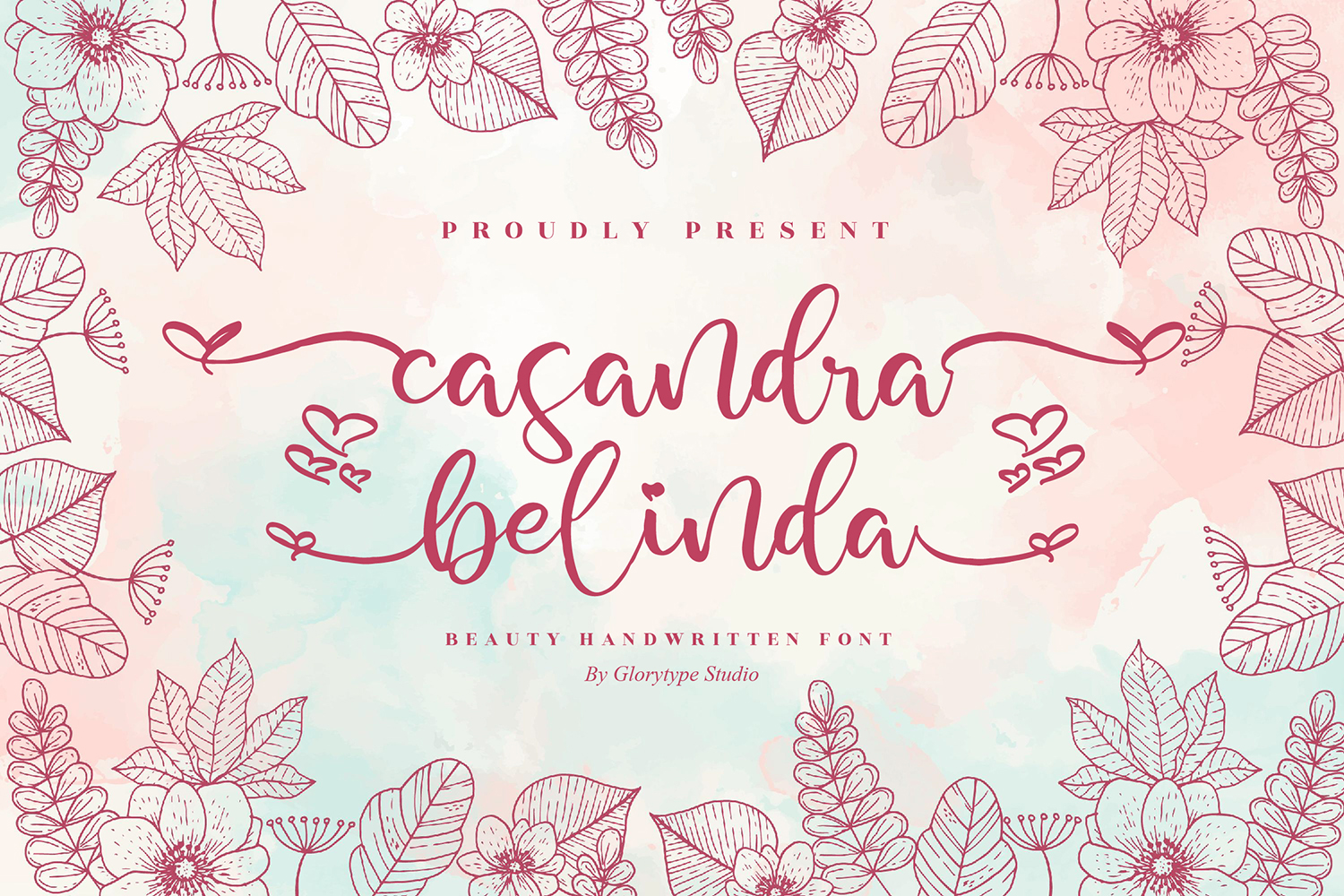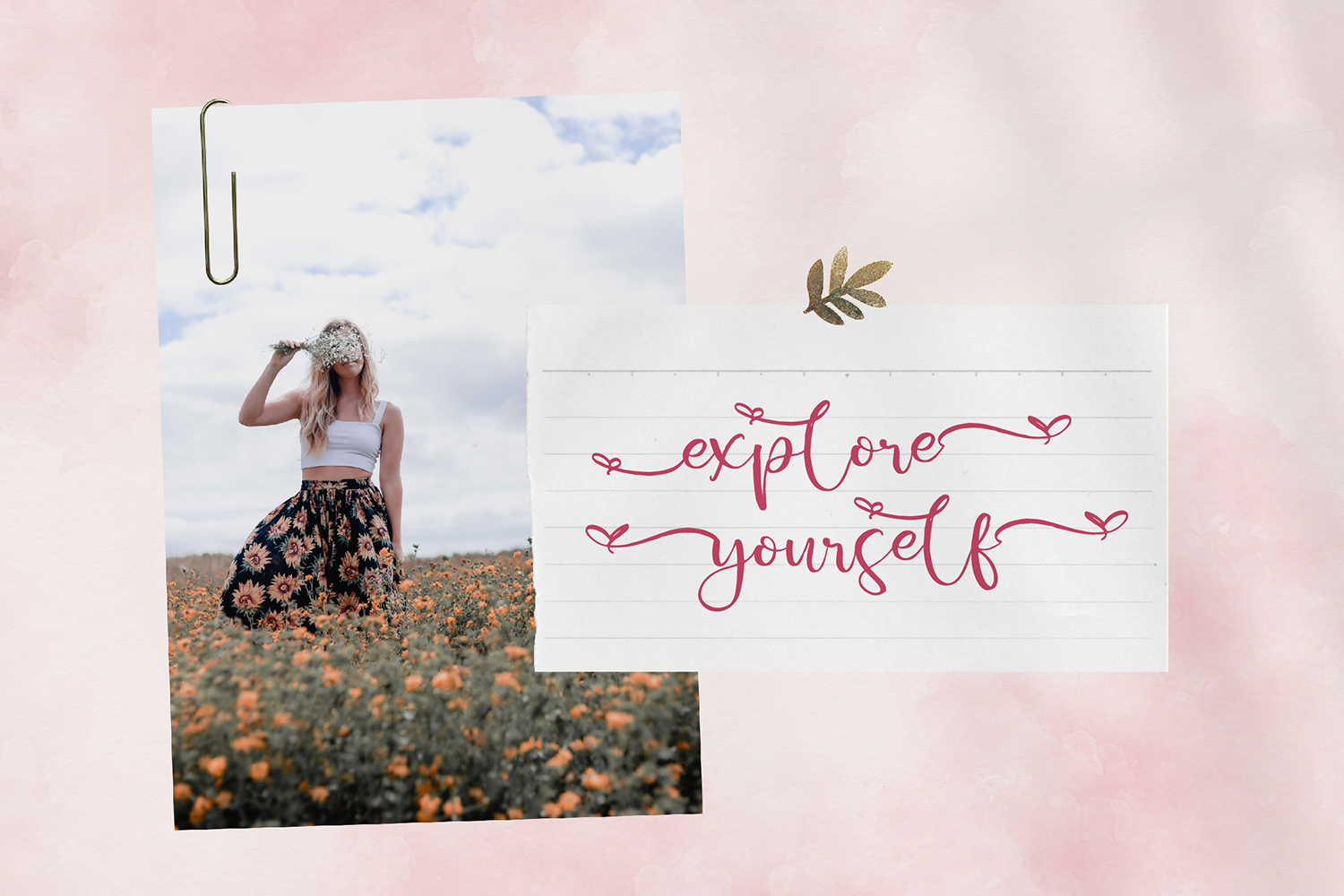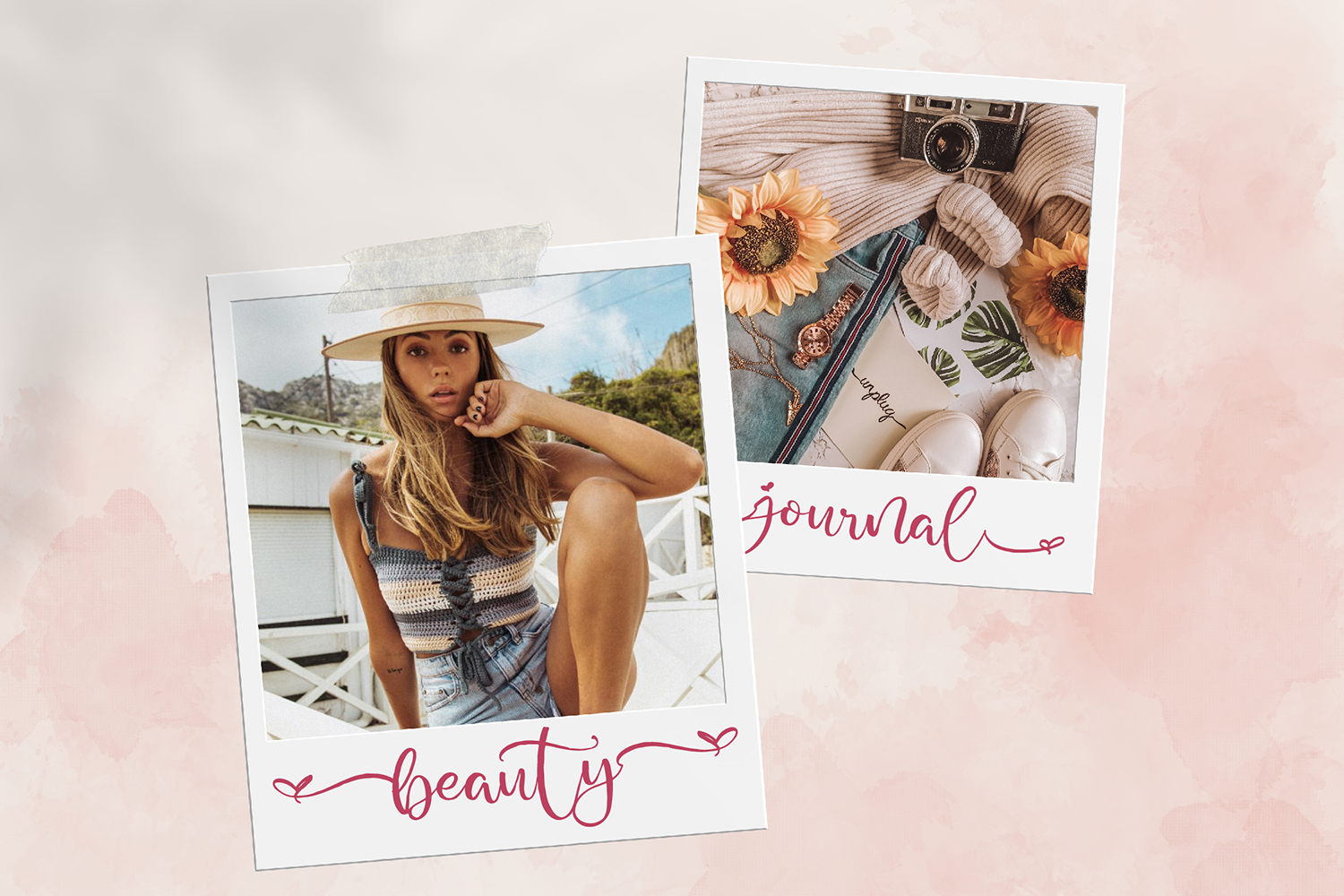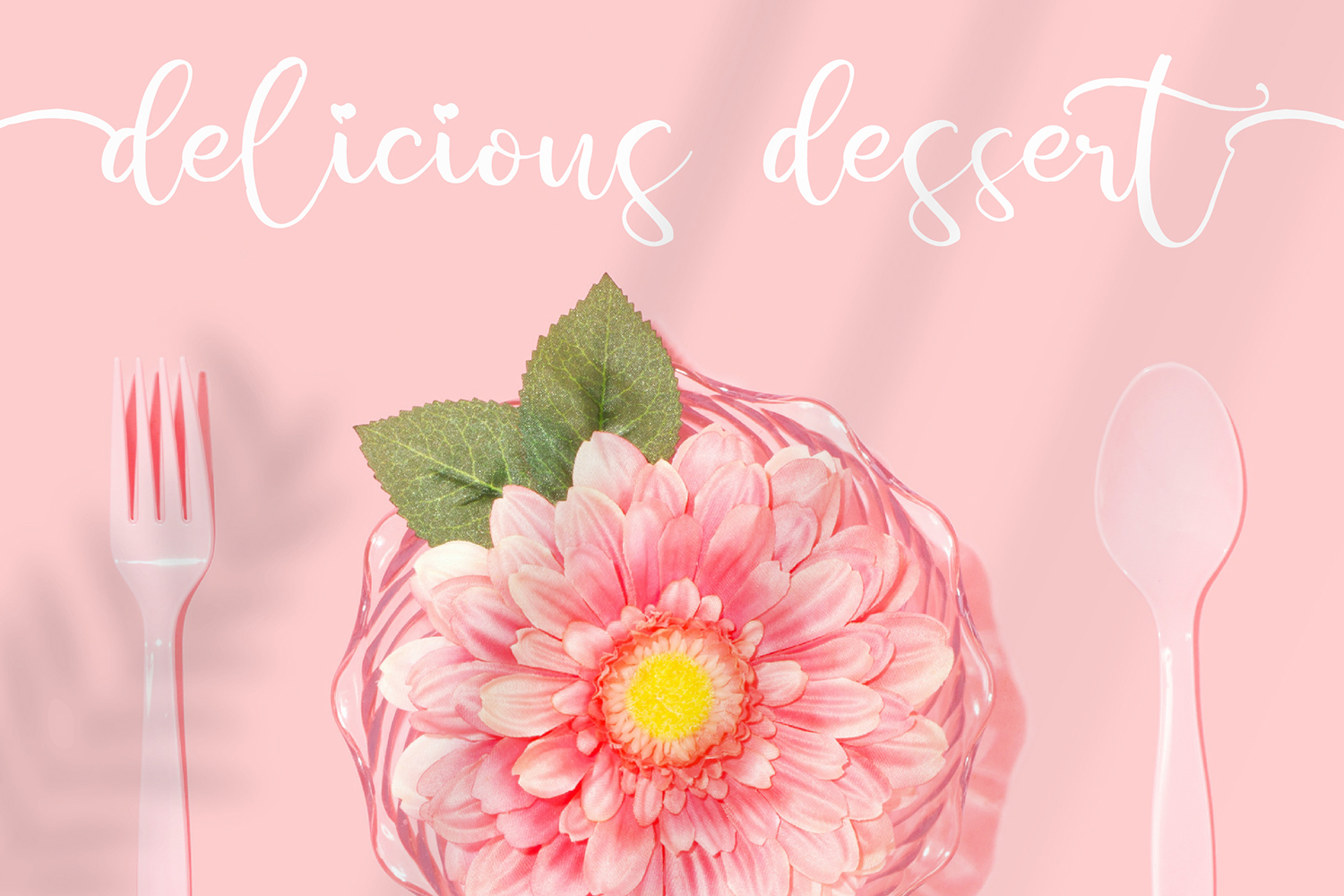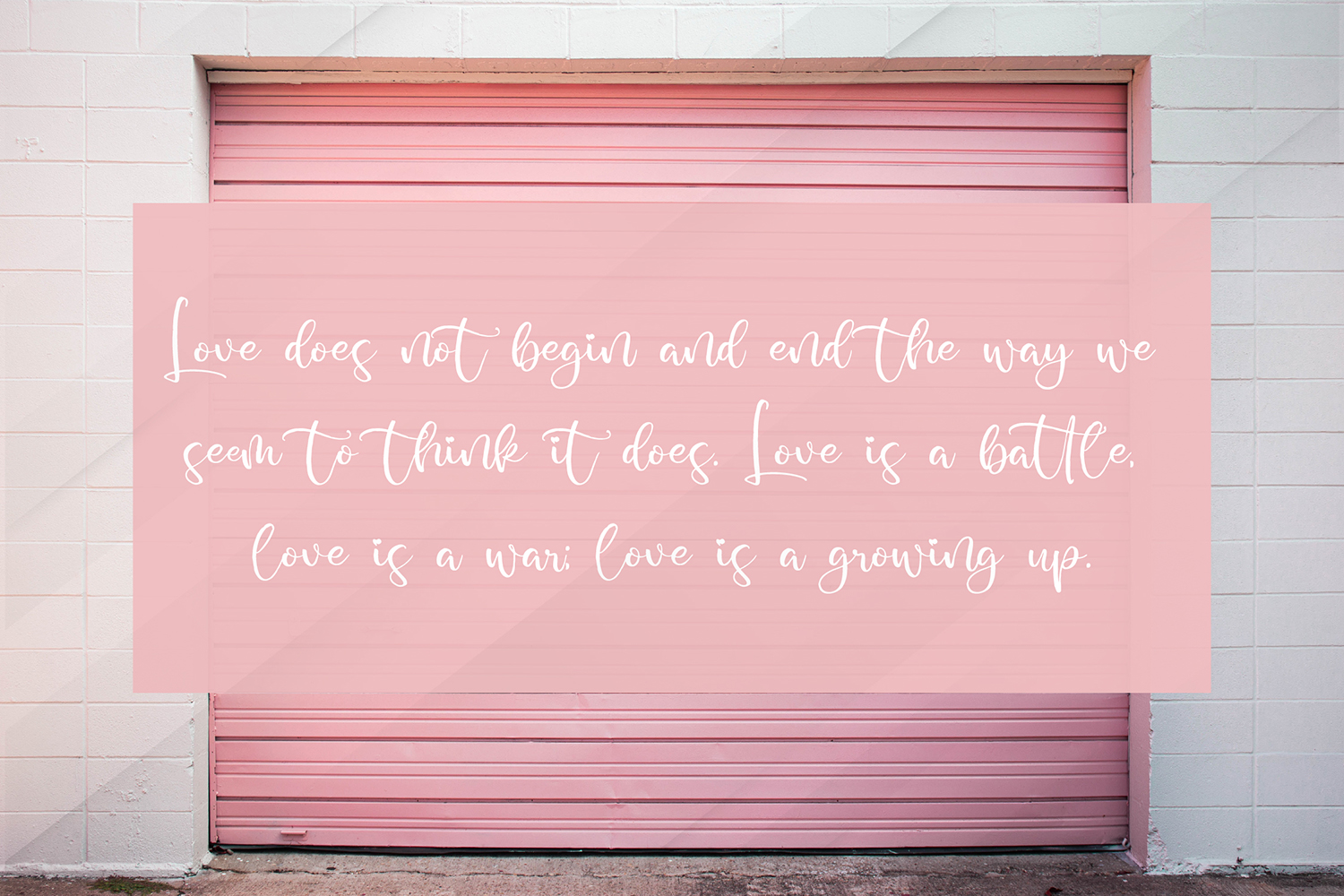
Casandra Belinda Free Font
Meet Casandra Belinda Free Font – a script font that embodies beauty and sophistication. Boasting a blend of class, elegance, and contemporary appeal, this font is an ideal choice for a range of applications including logos, branding, invitations, stationery, wedding designs, social media posts, and beyond. This free typeface was designed by a talented Glorytype Studio. If you like it don’t forget to check out the full version.